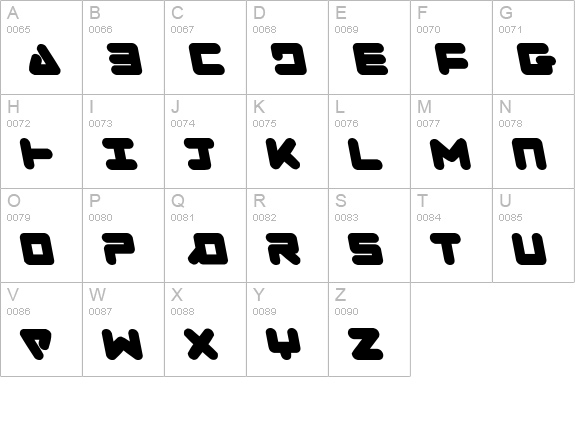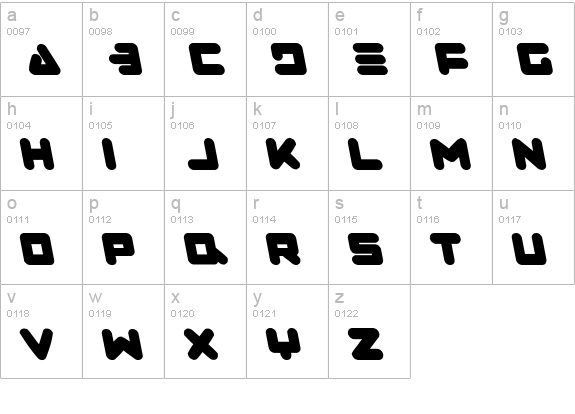
Zealot Leftalic font is a striking and dynamic typeface that exudes a sense of boldness and creativity. Its slanted design adds a touch of modernity and sophistication to any project, making it perfect for eye-catching headlines, branding materials, and more. With its sharp angles and clean lines, Zealot Leftalic commands attention and leaves a lasting impression. The best part? Zealot Leftalic font is available for free download at FontsMarket.com. This means you can elevate your designs without breaking the bank, making it a valuable addition to any designer's toolkit. Whether you're working on a personal project or a client's campaign, Zealot Leftalic font has the versatility and style to take your designs to the next level. Download it today and unleash your creativity with this bold and captivating typeface.